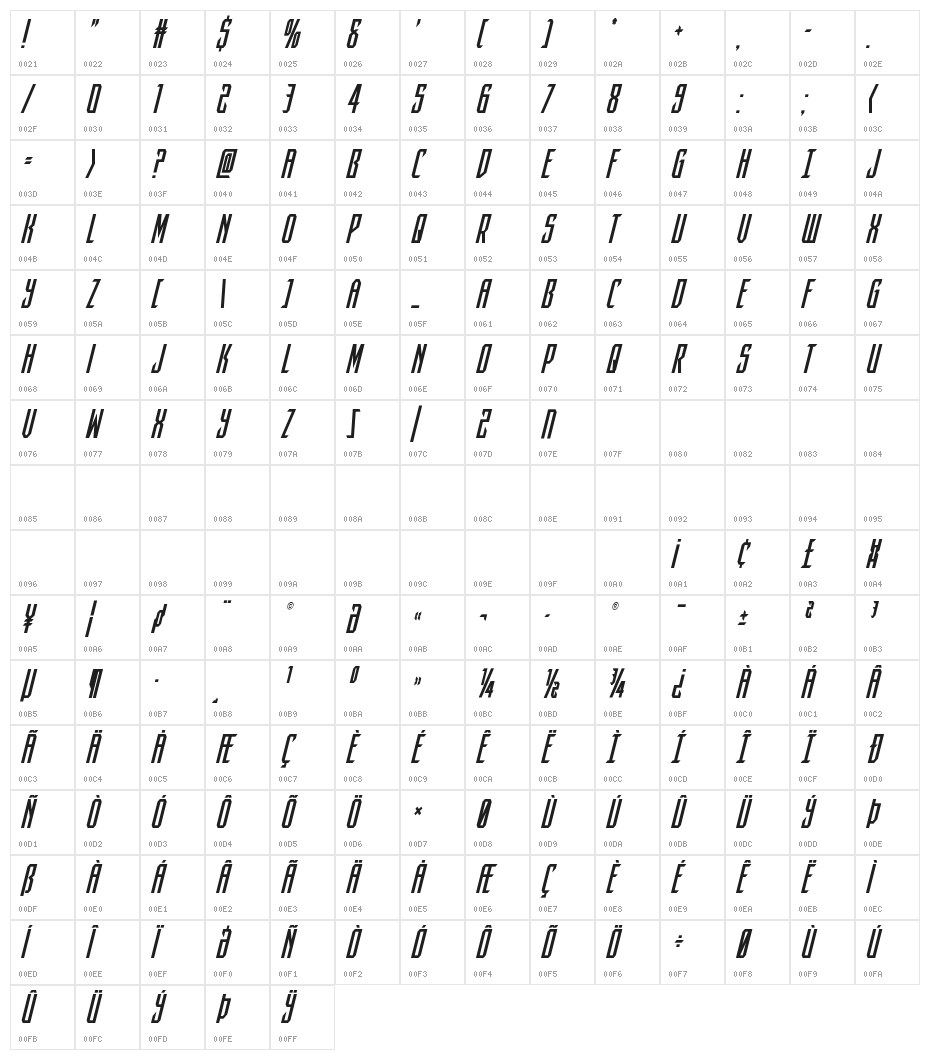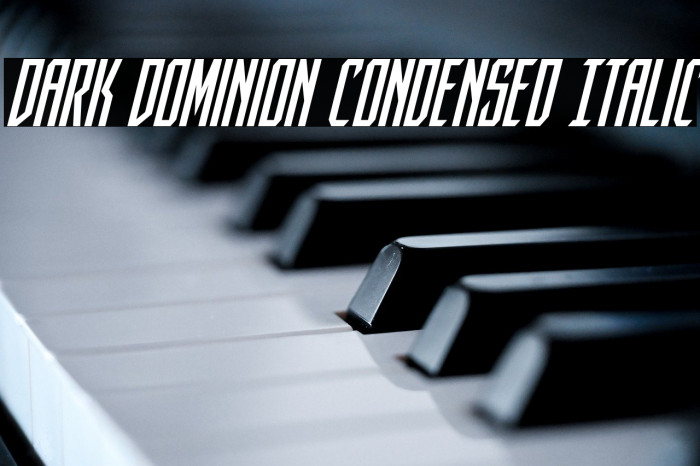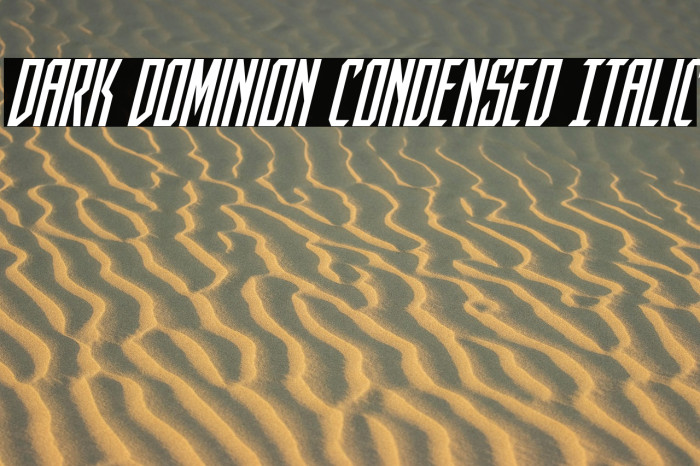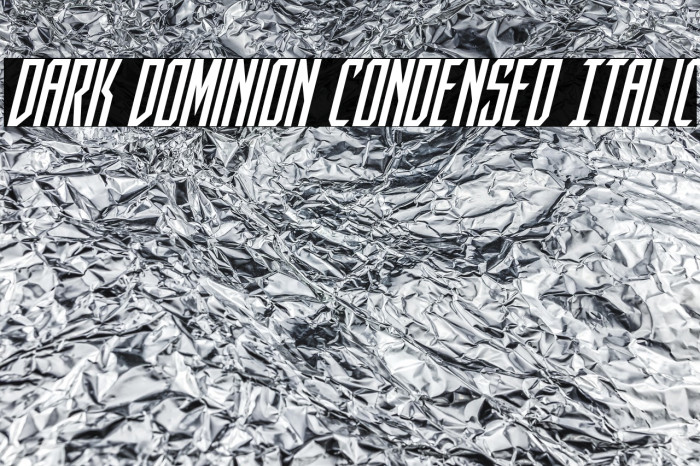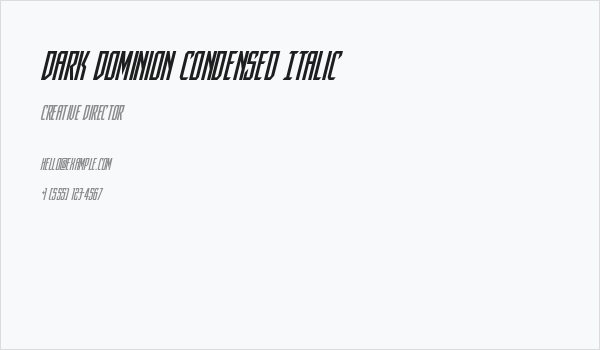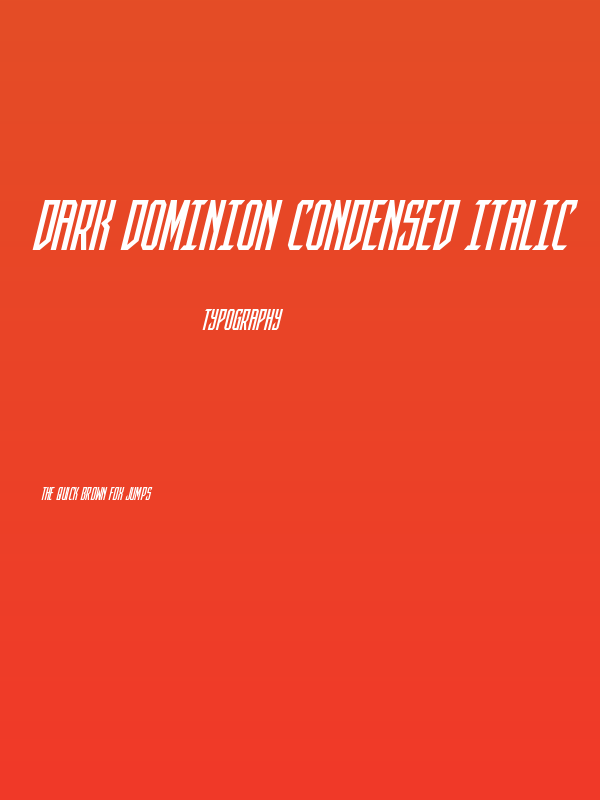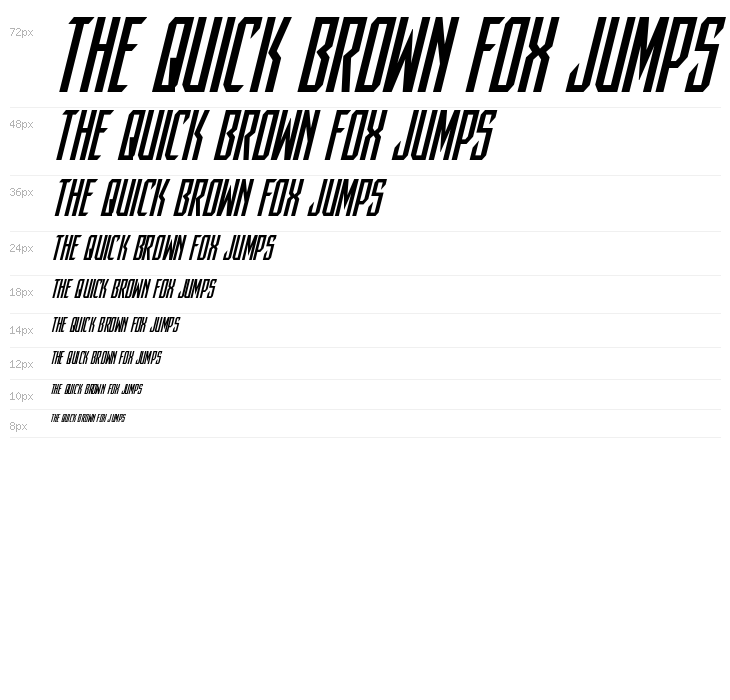
Dark Dominion Condensed Italic Font
Dark Dominion Condensed Italic Description
This font features a bold and dynamic style with a condensed and italicized form. The characters are sharply angled, giving a sense of motion and energy. The uppercase and lowercase letters maintain a consistent slant, enhancing the italic effect. The numerals and special characters follow the same design principles, ensuring uniformity across the typeface. The strokes are thick, contributing to a high contrast between the characters and the background. This font's condensed nature allows for efficient use of space, making it suitable for impactful headlines and titles.